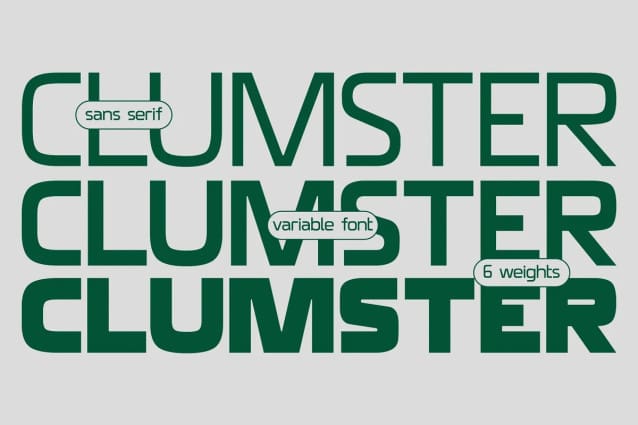
SK Clumster Font
SK Clumster Font is an extravagant multilingual geometric grotesque, developed under the impression of the unique and exciting aesthetics of font design. Its structure is enlivened by an innovative combination of geometric and organic shapes that transform the familiar letter pattern. SK Clumster Sans creates a unique visual impression through a combination of shapes, a large symbolic and weights set, in addition to lively and dynamic angles and lines. The font is suitable for creating original design works that reflect the creative potential of the author and his bold experiments in the field of design.